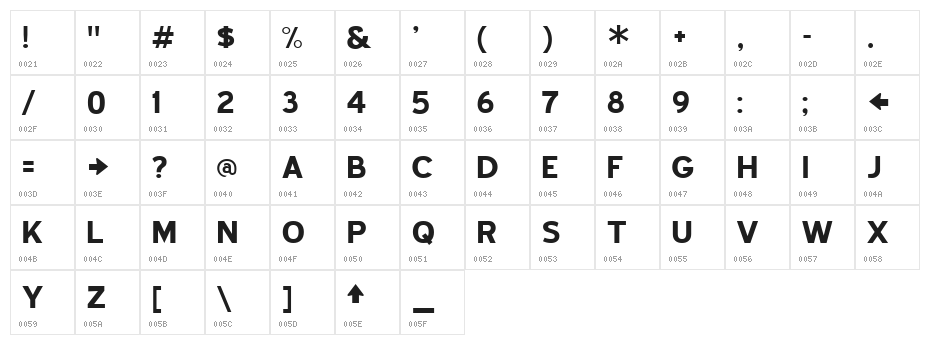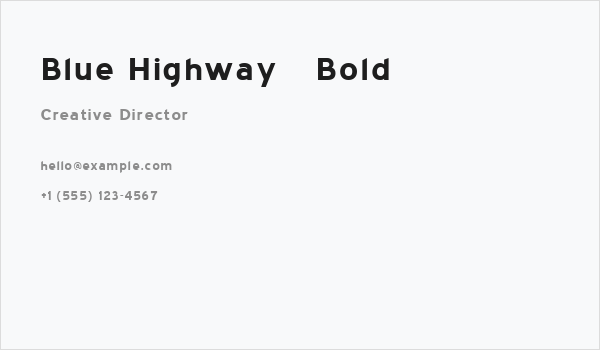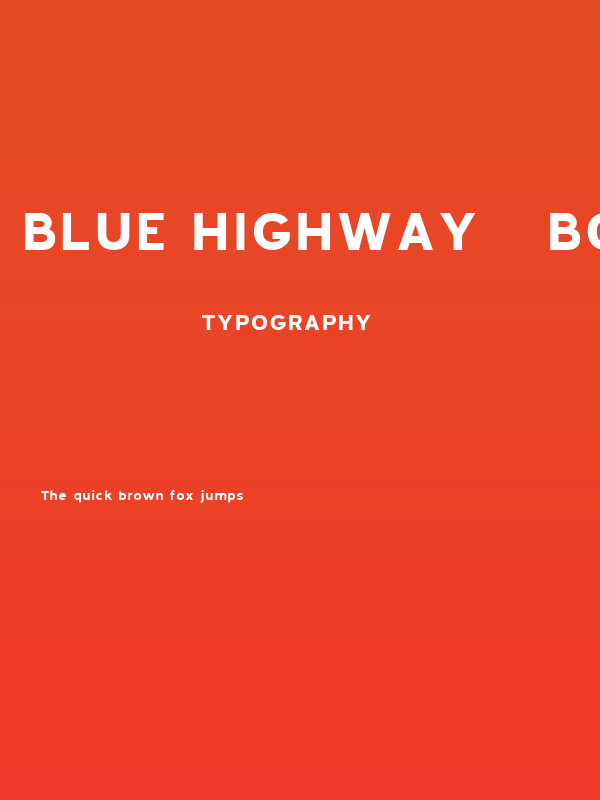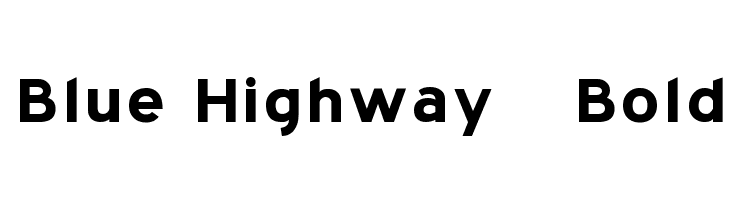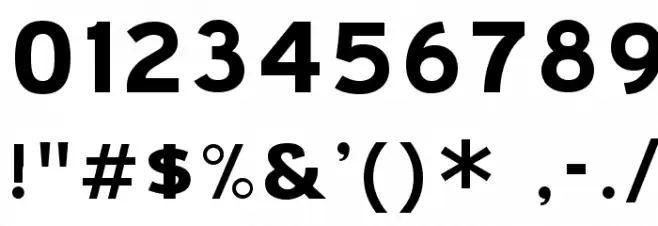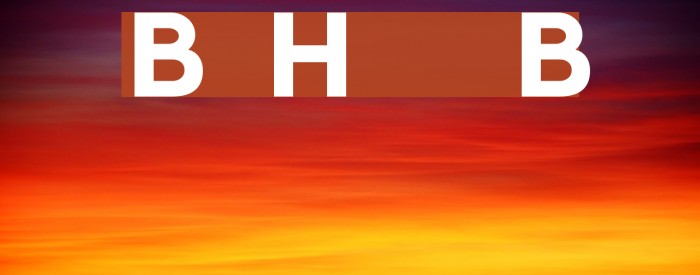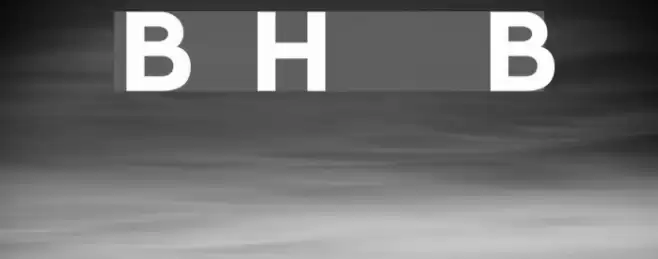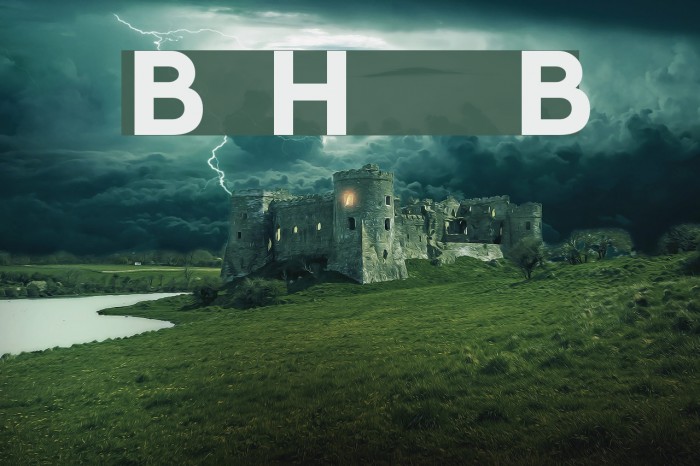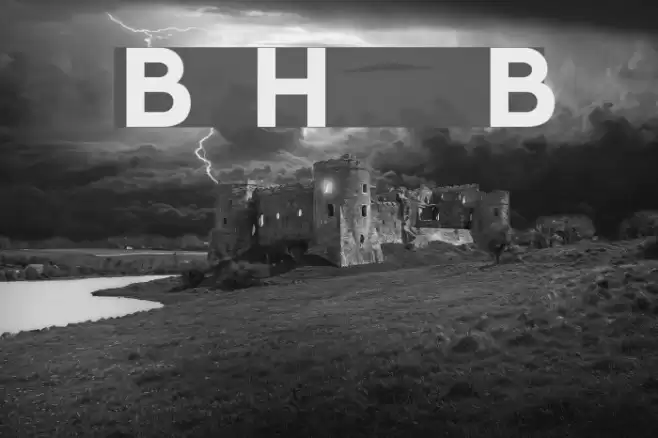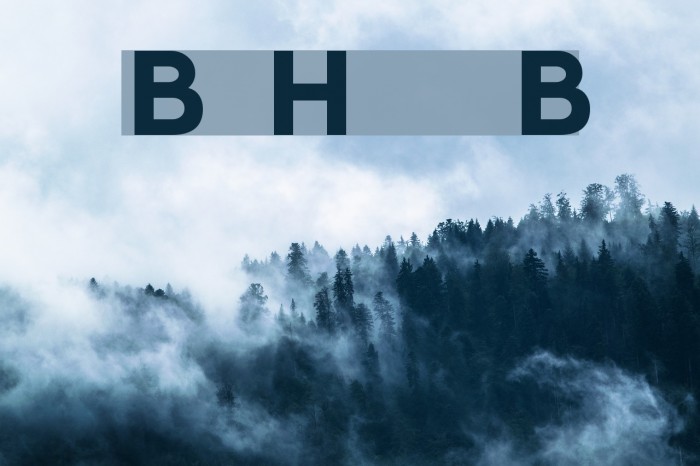
Blue Highway Bold Font
Blue Highway Bold Description
This font features a bold, sans-serif design with clean, geometric lines and a modern aesthetic. The uppercase letters are uniform in height, providing a strong and cohesive appearance. The lowercase letters maintain a similar width, ensuring readability and balance. Numbers are bold and clear, making them suitable for various applications. Special characters are well-defined, complementing the overall style. The font's simplicity and clarity make it versatile for both digital and print media.
| Use Case | Headlines, Logos, Signage |
| Proposed Projects | Ideal for signage, branding, headlines, and digital interfaces where clarity and impact are essential. |